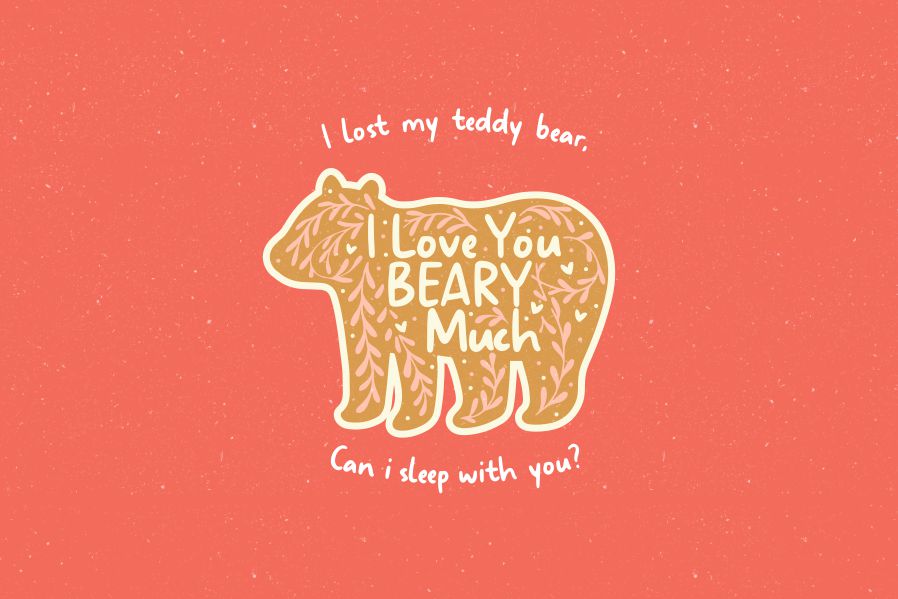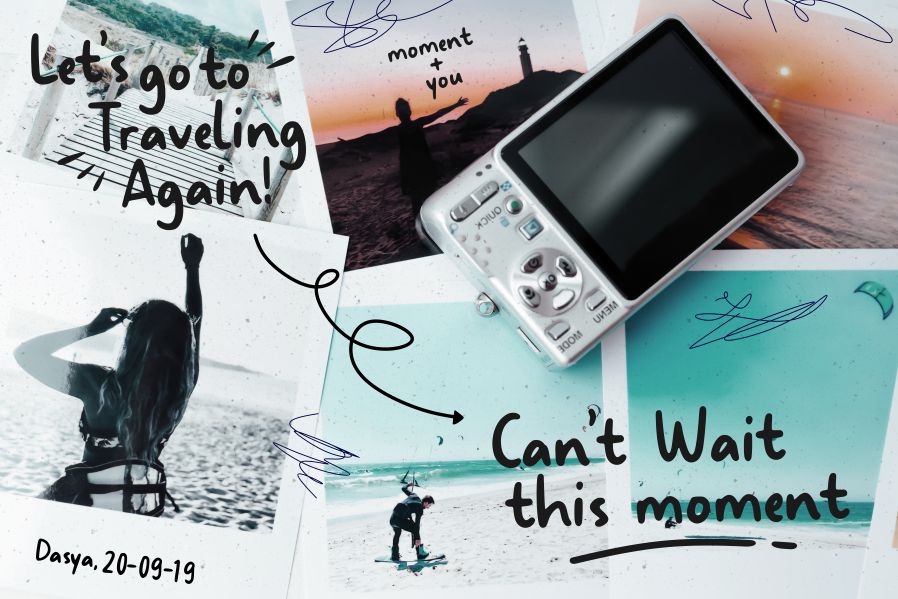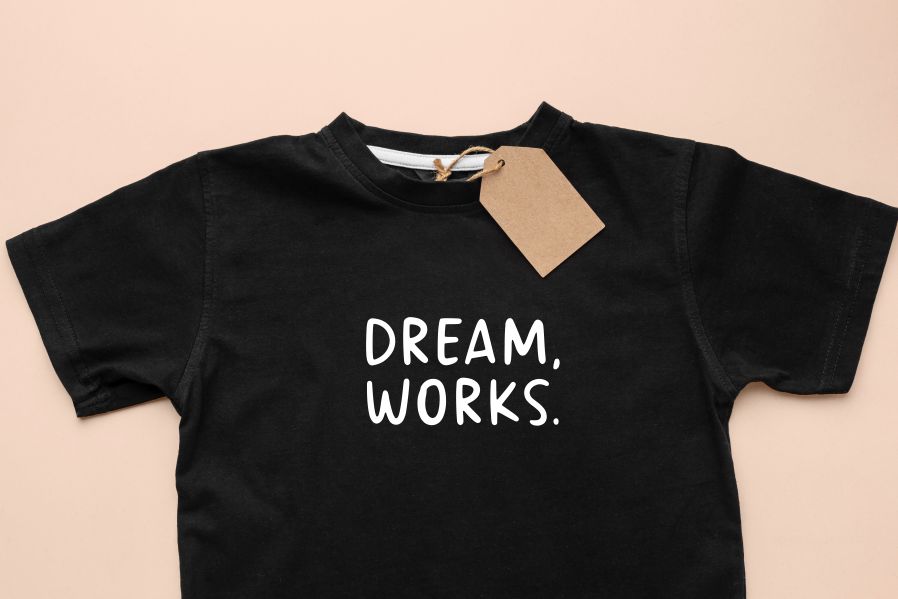
Creamy Garden Font
Creamy Garden Handwritten Font
This typeface is a Fun Handwritten Font. Creamy Garden is perfect for any titles, logo, product packaging, branding project, megazine, social media, wedding, or just used to express words above the background. Creamy Garden also come with Multi-Lingual Support.